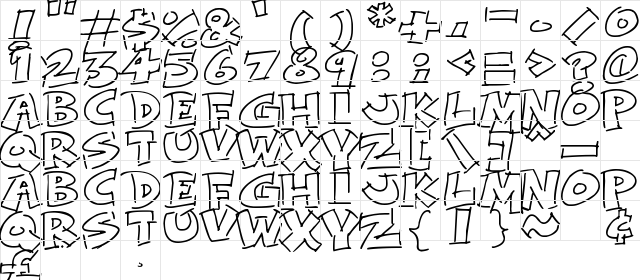
Complete Rough Comic Outlines Regular glyph index. Displaying only characters natively supported by Rough Comic Outlines Regular font.
Rough Comic Outlines embraces imperfection - its rough, textured character adds raw authenticity to designs that want to feel lived-in and unconventional.
Pro Tip: Use Rough Comic Outlines at larger sizes where the texture and irregularity of each letterform can be clearly seen - it loses its character at small sizes.